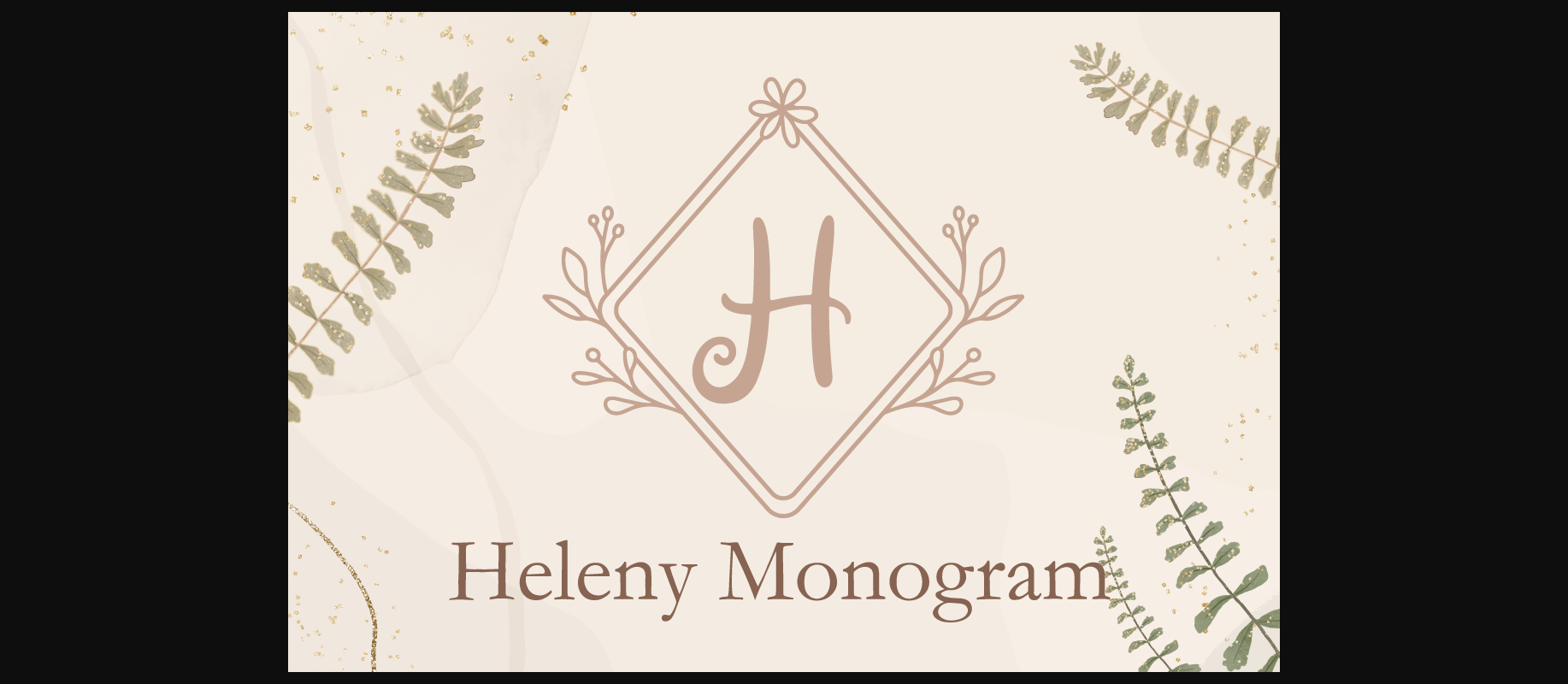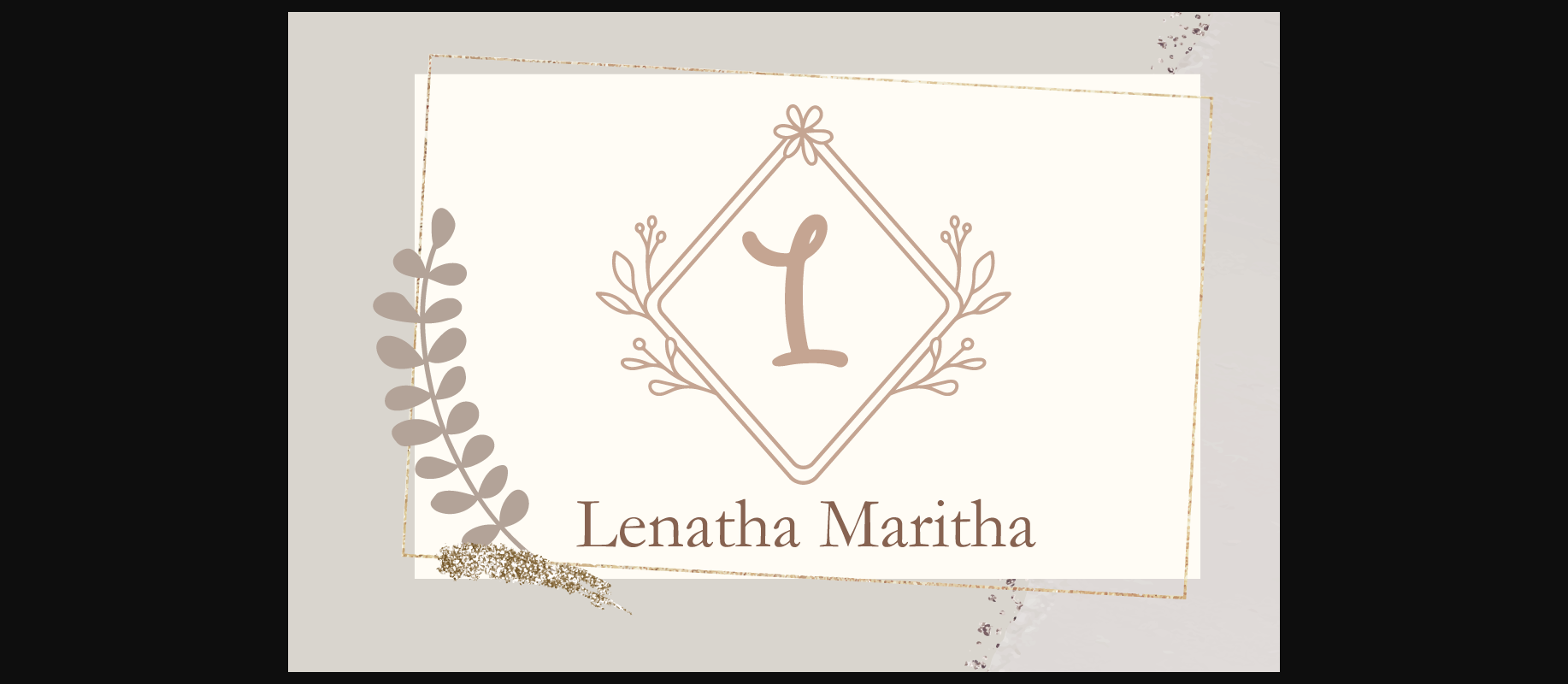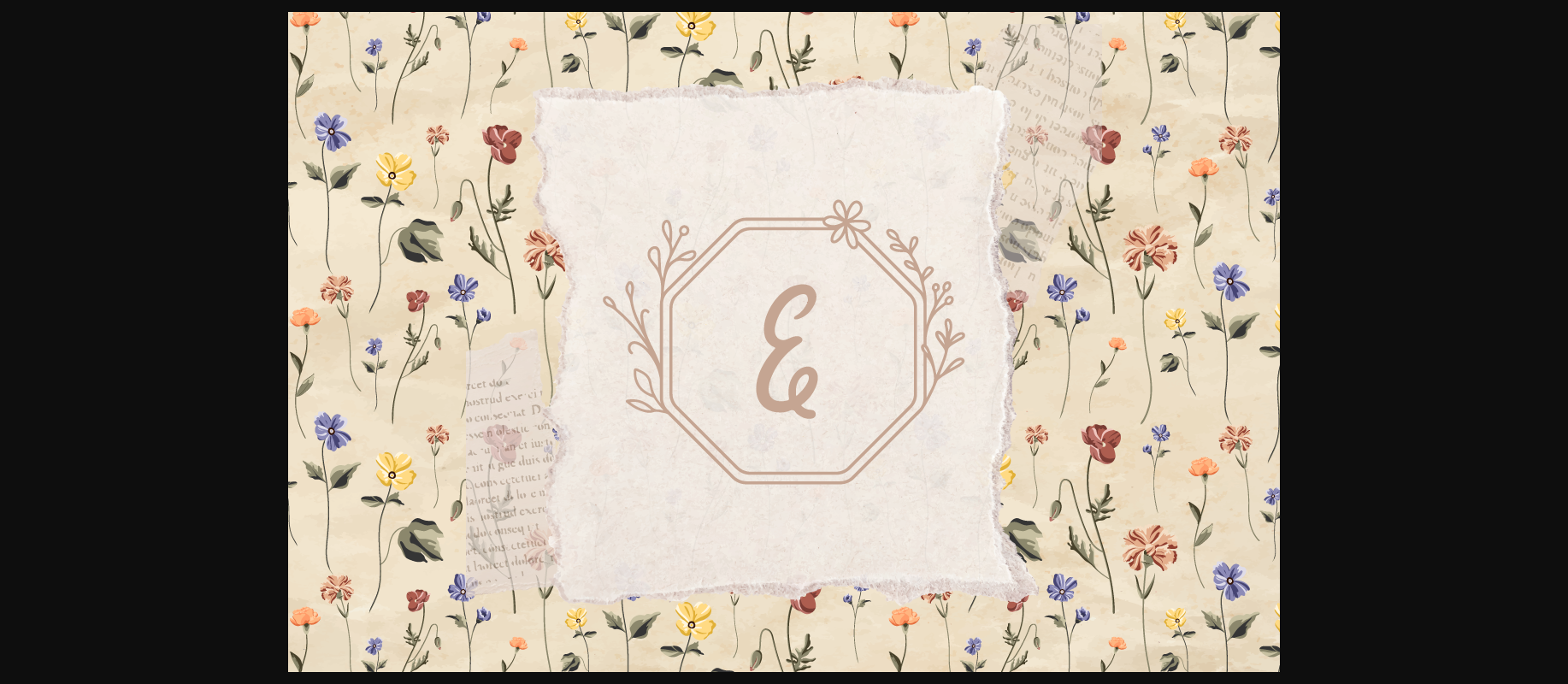
About Heleny Monogram Font
Heleny Monogram is a beautiful and delicate decorative font. It will easily make each of your creations look elegant and unique. Add it confidently to your projects, and you will love the results.